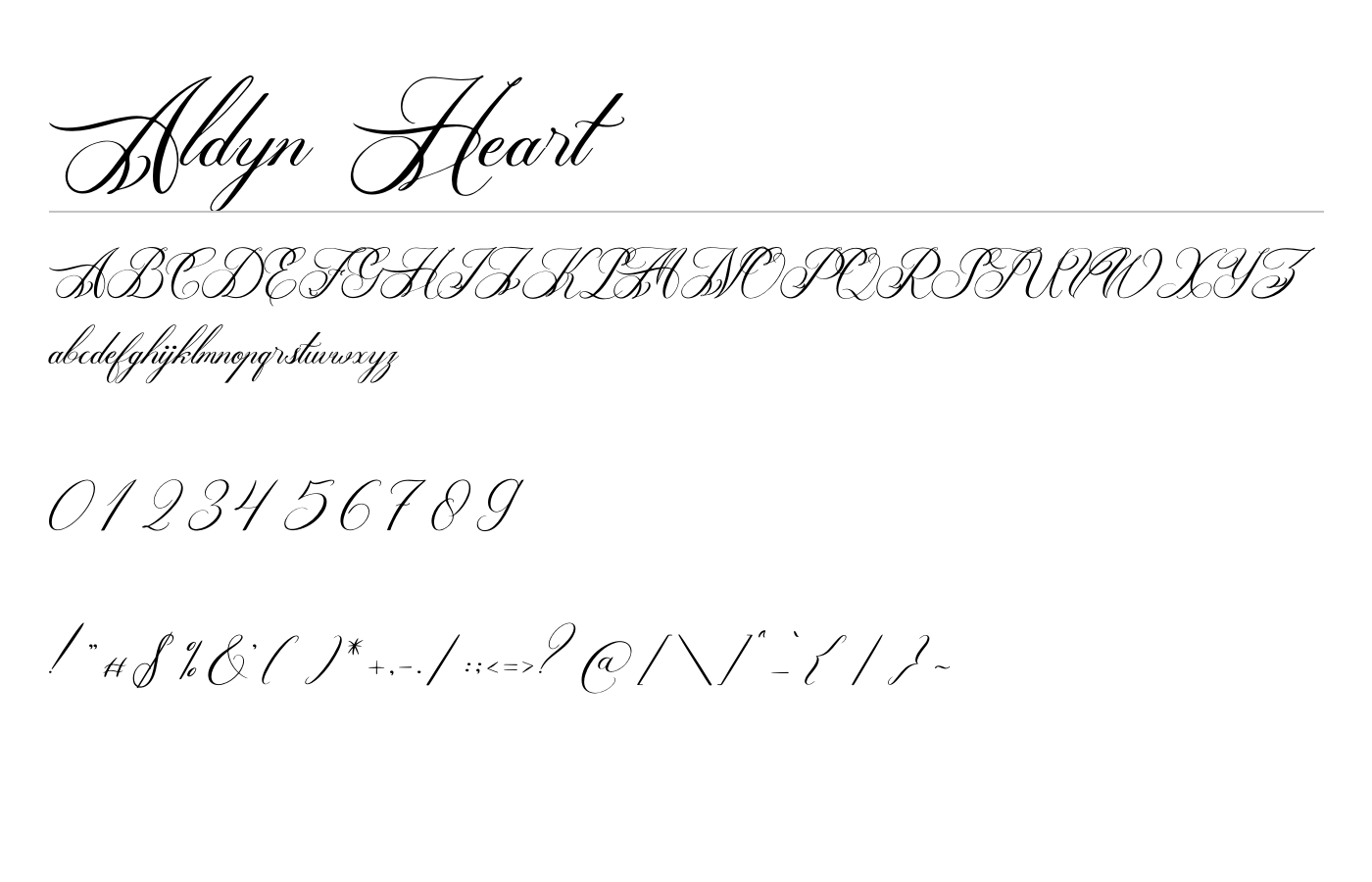
Aldyn Heart is an elegant script font characterized by delicate, flowing lines and refined, high-contrast strokes that give it a graceful, sophisticated feel. Its ornate, calligraphic uppercase letters paired with slender, cursive lowercase forms make it perfect for luxury branding, wedding invitations, and editorial use where a touch of romance and refinement is desired. This font shines in contexts that call for a delicate, stylish appearance, adding charm and elegance to any design.
Aldyn Heart Font
About Aldyn Heart Font